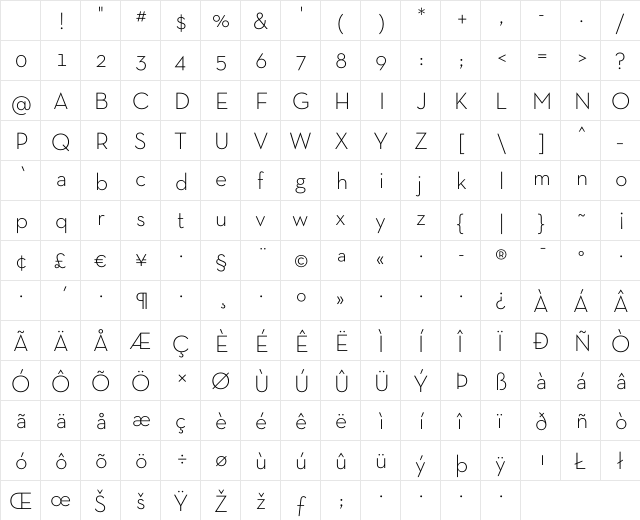
Neutra Text TF Light Regular
Designer: Christian Schwartz
Neutra Text TF Light Family
Complete Neutra Text TF Light Regular glyph index. Displaying only characters natively supported by Neutra Text TF Light Regular font.
Design Context for Neutra Text TF Light
Neutra Text TF Light is a composed and adaptable typeface that performs quietly and consistently across a wide range of design contexts. Its slender proportions lend an understated elegance to any composition.